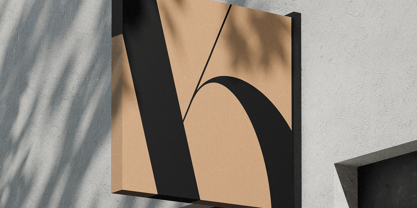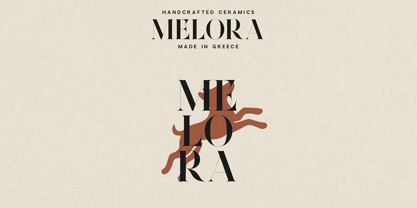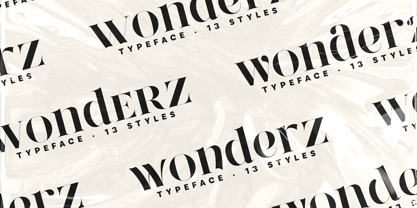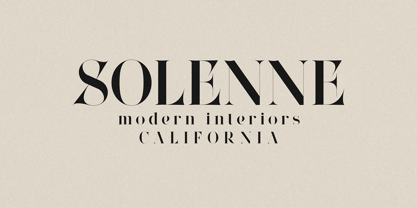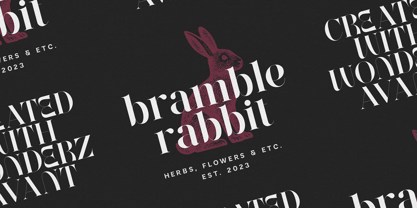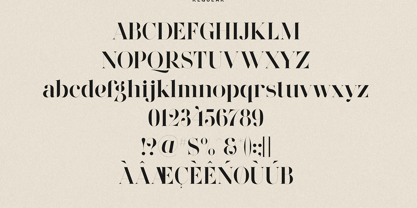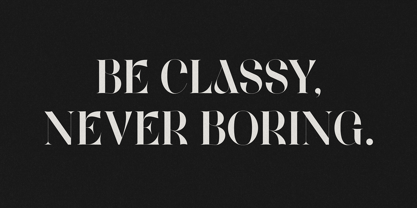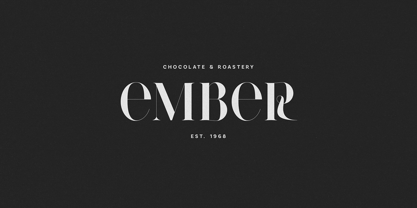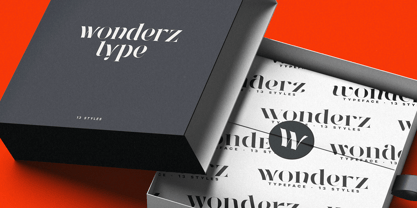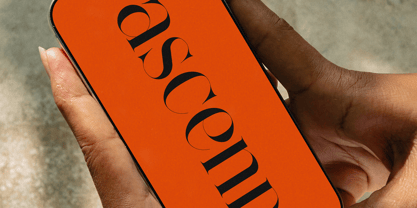
Wonderz
by VP Creative Shop
The Wonderz Font Family was designed by Vladimir Fedotov, Plamen Petrov and published by VP Creative Shop. Wonderz contains 12 styles and family package options. More about this family
Wonderz Typeface — A Modern Serif with Timeless Charm Wonderz is a refined serif typeface designed for those who seek elegance with a contemporary edge. Featuring 12 distinctive styles — Edge, Ascend, Avant, Echo, Elite, Flair, Flow, Grace, Prime, Pulse, Regular, and Vogue — Wonderz offers remarkable versatility for branding, packaging, editorial design, and digital projects. Each style brings a unique personality, from the sharp sophistication of Edge to the fluid motion of Flow, and the bold expressiveness of Vogue. With its high contrast strokes, elegant curves, and artistic letterforms, Wonderz blends modern fashion aesthetics with classic typographic craftsmanship!
Designers: Vladimir Fedotov, Plamen Petrov
Foundry: VP Creative Shop